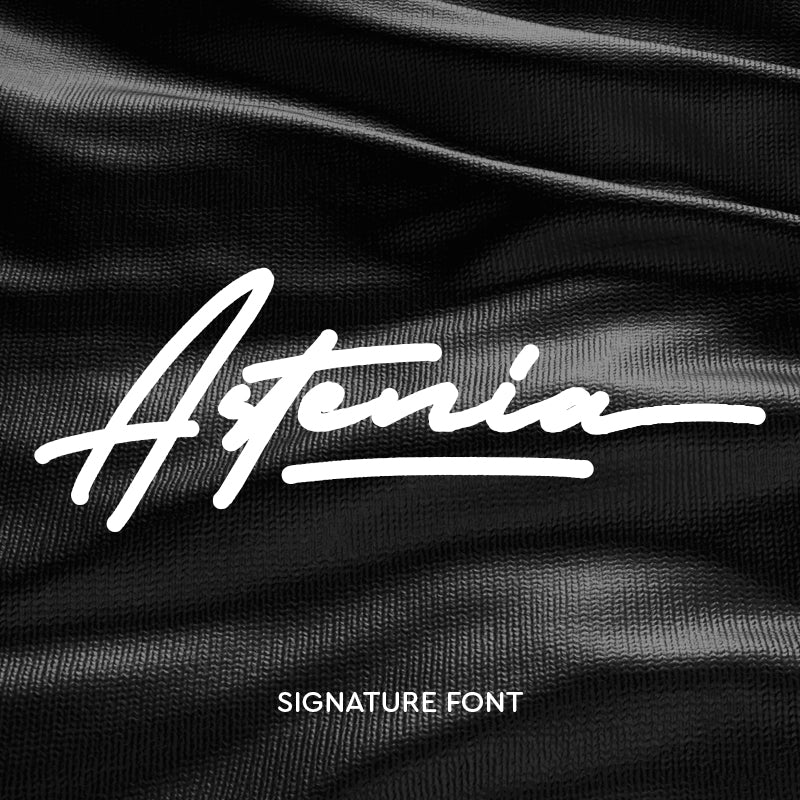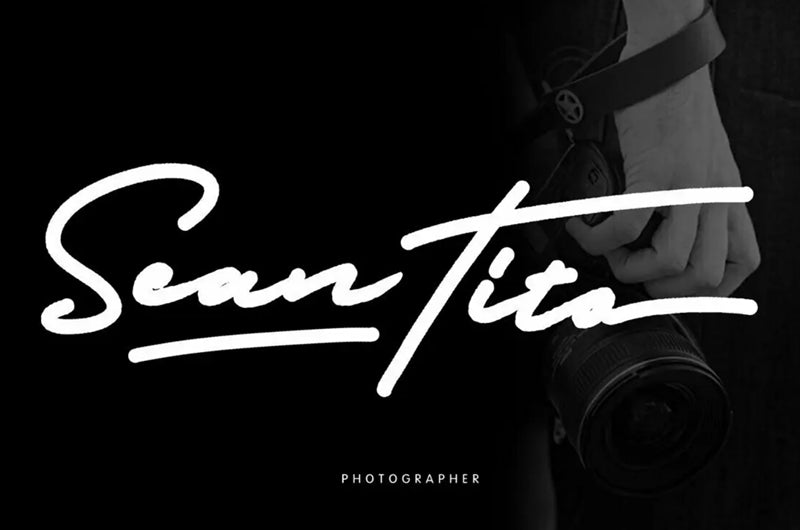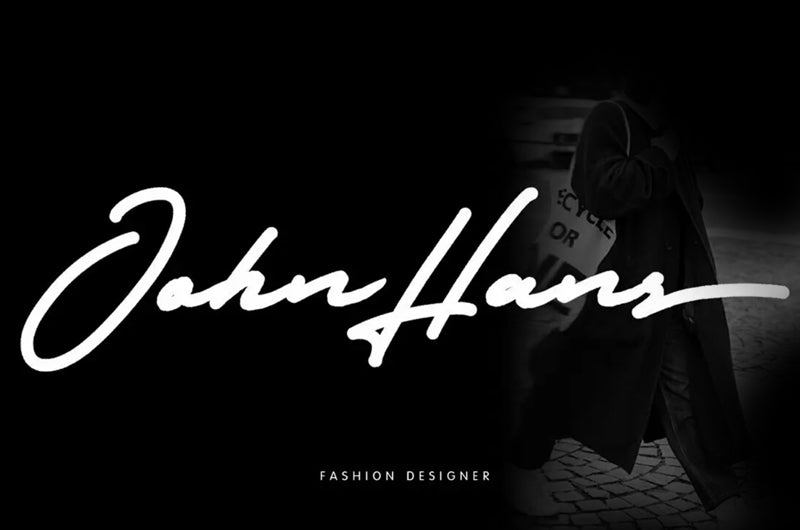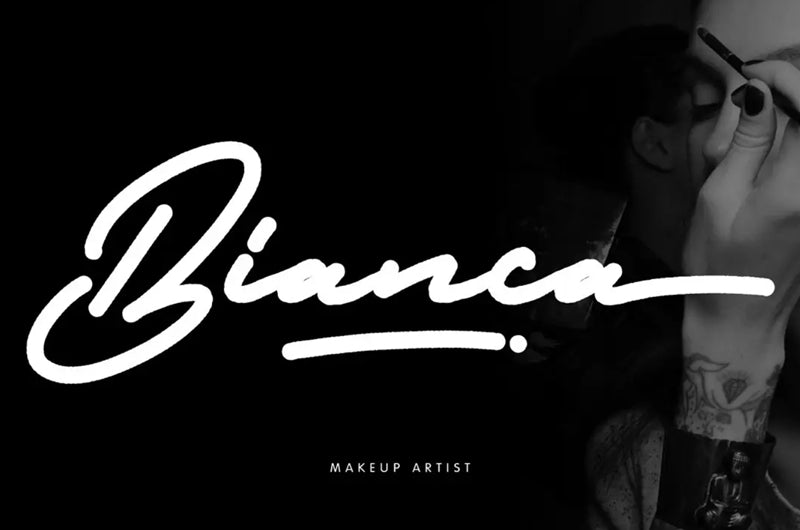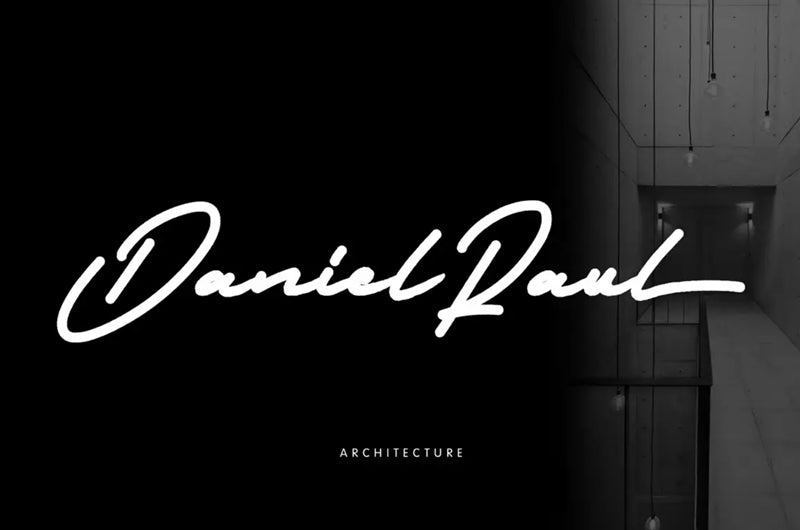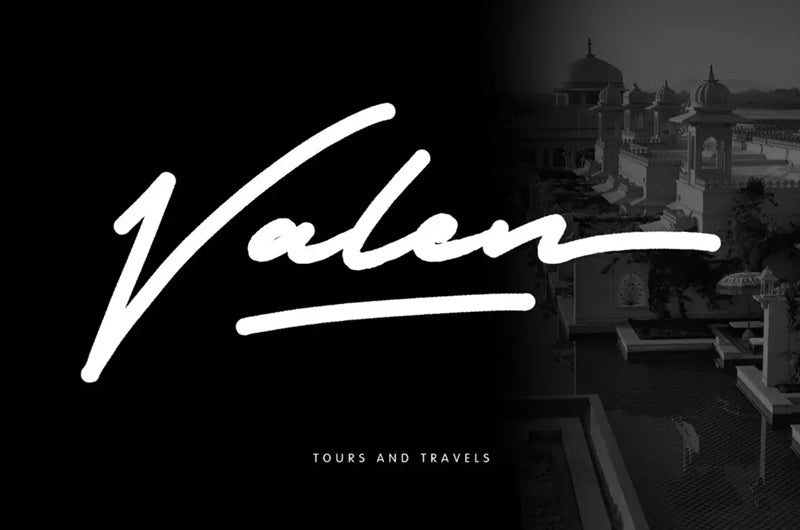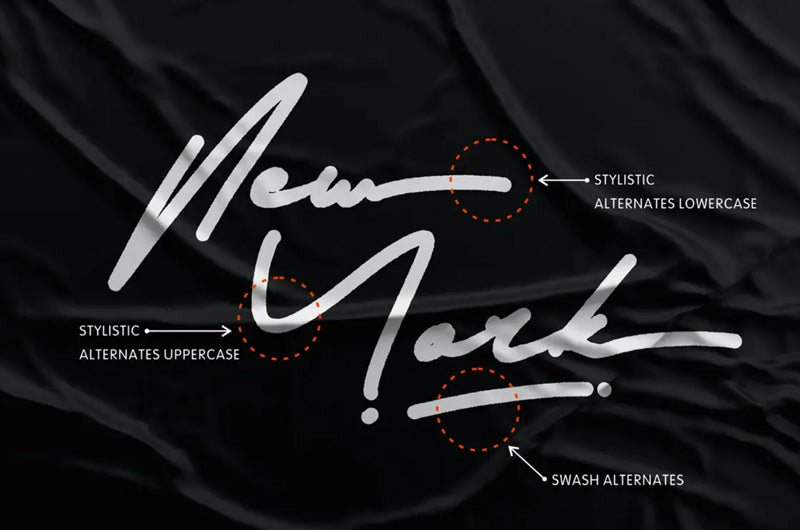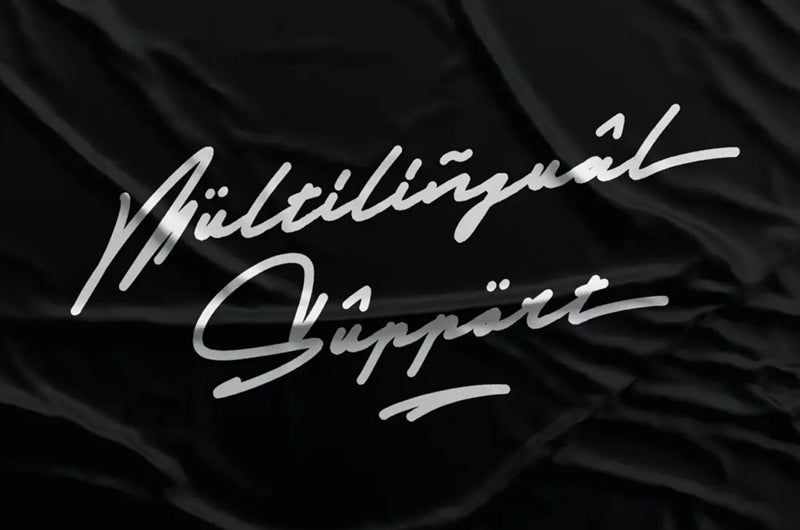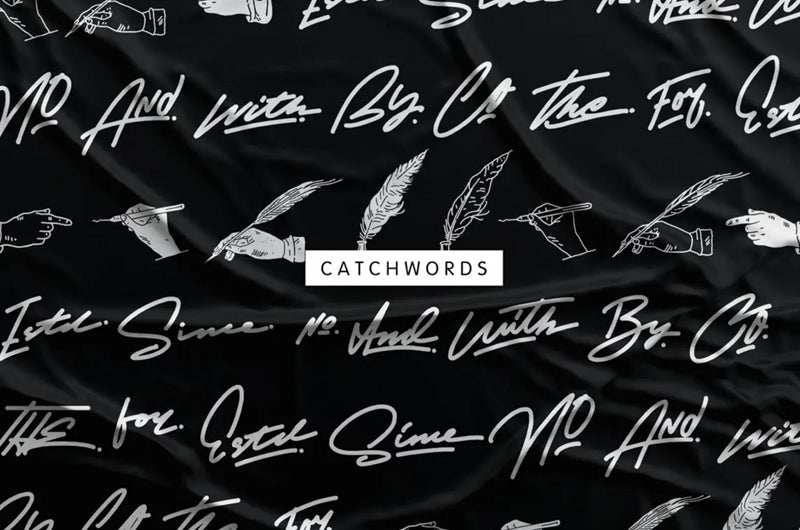
Astenia Handwritten Font
Astenia is a modern script that is designed in detail, made with original hand pulls, the perfect font to meet needs such as photography, signatures, branding, logos, and more. Very beautiful and classy, ​​simple but strong.
Astenia Handwritten Font is a modern script font created with original hand pulls, featuring a detailed design that combines simplicity with strength. It is suitable for various applications in photography, branding, and graphic design.